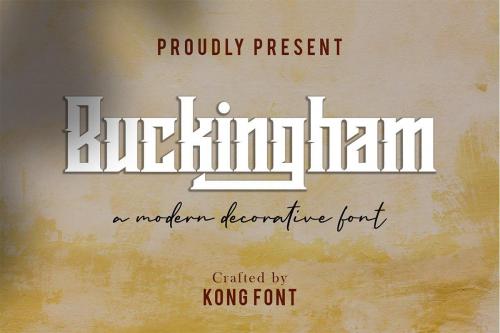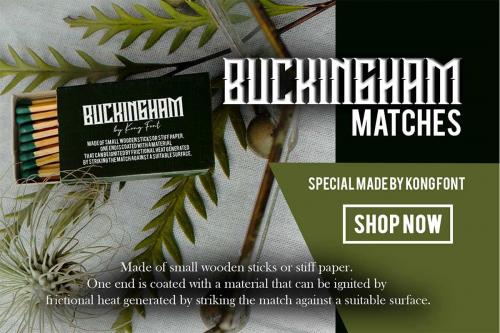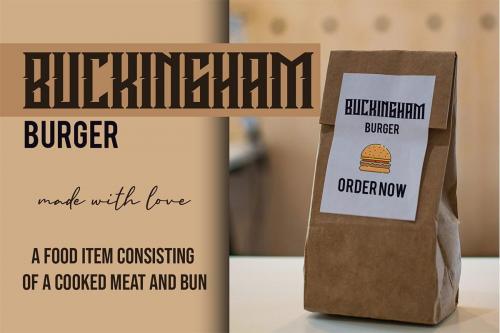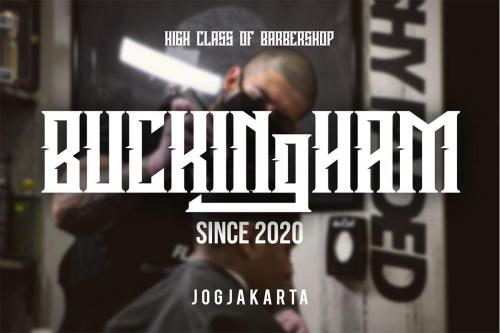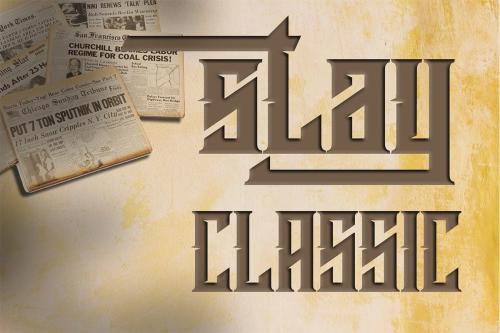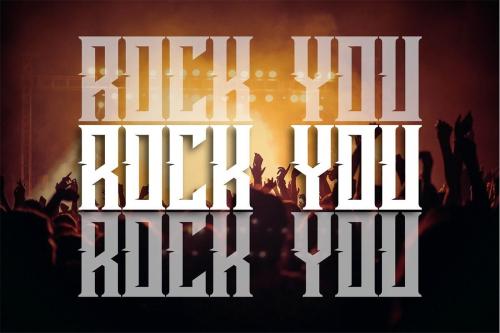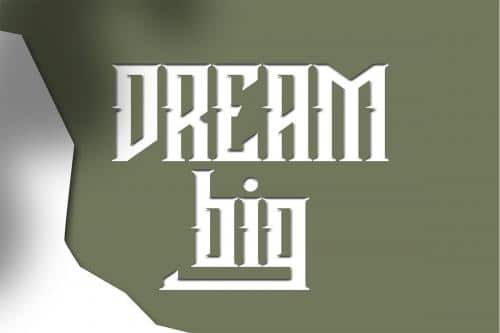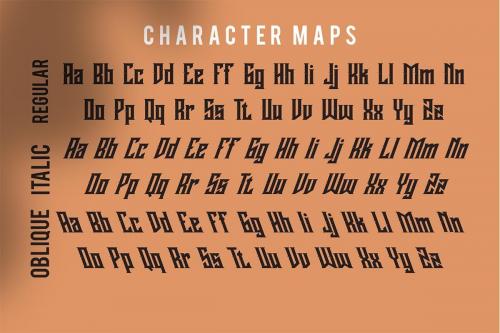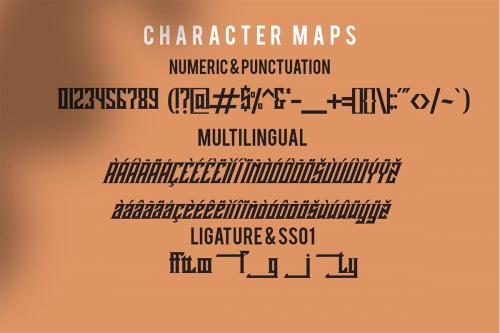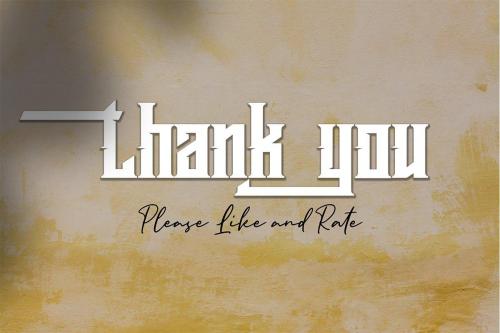
Buckingham Font is a strong & versatile display font with great character. Its strong lines and round corners give it personality, bridging the gap between digital and handmade.
A collection of letters and numbers suitable your projects also great for Logotype, Branding Design, Logo Design, Digital Lettering Arts, T-Shirt/Apparel, Poster, Magazine, Signs, Advertising Design, and also perfect for your other projects branding.